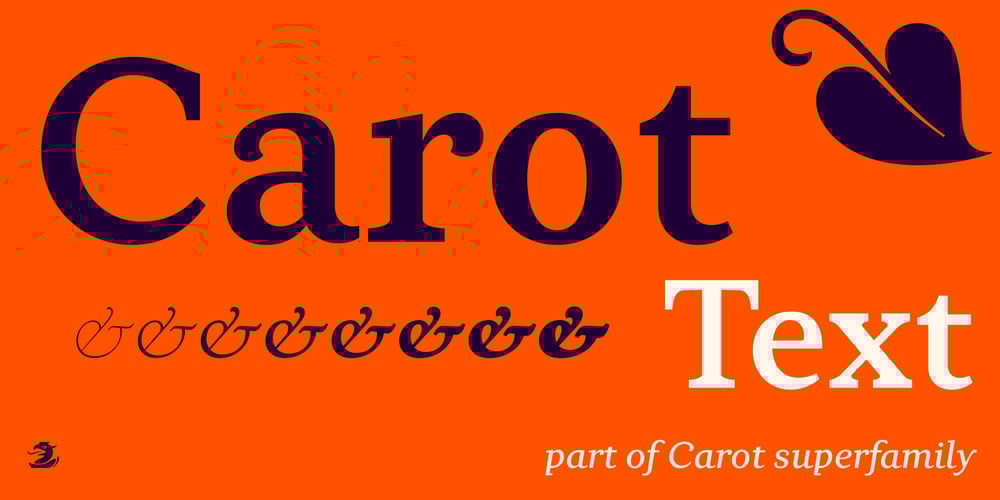
Carot Text
Carot Text font
Carot Text Font Family was designed by František Štorm and published by Storm Type Foundry. Carot Text contains 16 styles and family package options. Carot Text fonts are especially tuned for reading sizes: their serifs have adequate strength and do not cause fatigue when reading long. Originality lies in the tradition revived by modern language. The whole Carot system is built up from what has long been around; in any case, it was the intention: to evoke the already experienced visual reminiscences of today’s spectacled people. I believe in the raw effect of “Carot” typefaces. The family of 64 members offers a modern alternative for all types of design work.